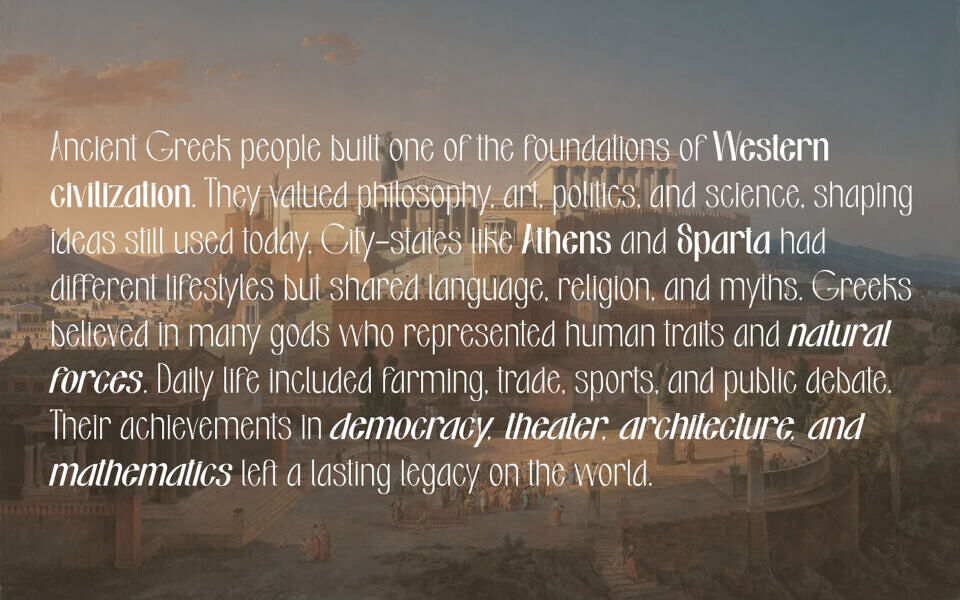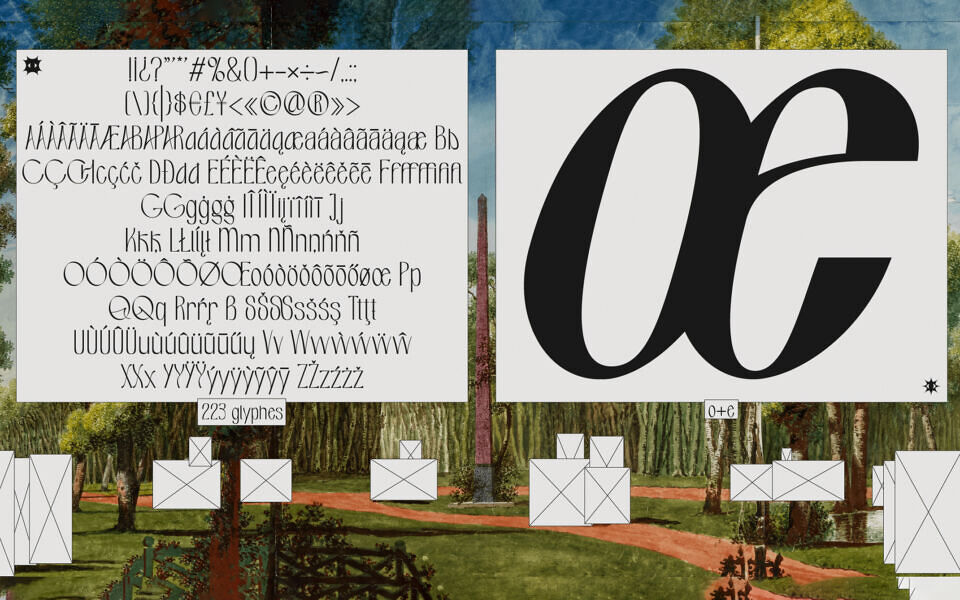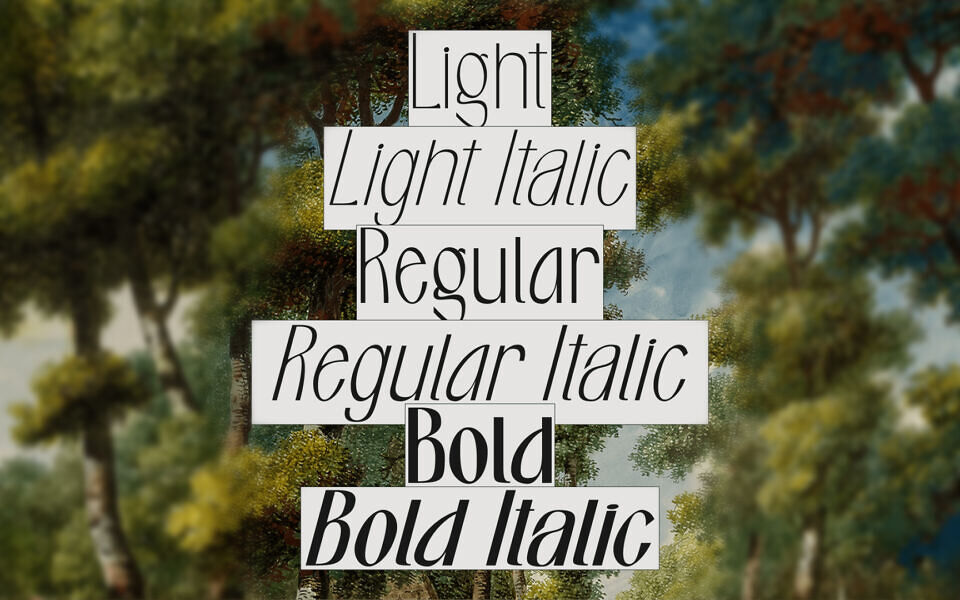
Pavot Font
Pavot is a high-contrast display font that blends classical Greek influence with modern Art Nouveau flair. Featuring 6 distinct styles—Light, Regular, and Bold, each with a matching Italic—it excels in editorial and branding contexts.
The typeface is defined by its extra-tall x-height, elongated vertical stems, and experimental geometric ligatures (like the “oe” and “st” connections). With 223 glyphs supporting multilingual Latin characters, Pavot offers a refined, artistic aesthetic for headlines and high-fashion typography.